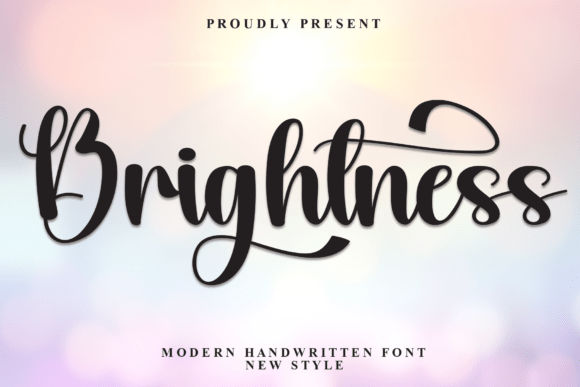
Introducing Brightness Font: The Epitome of Elegance and Sophistication
In the world of typography, few fonts manage to capture the essence of elegance and charm as effectively as Brightness Font. This stunning handwritten script font is designed to bring a touch of sophistication and refinement to any design project. With its fluid, graceful strokes, Brightness Font is perfect for a wide range of applications, from branding and invitations to stationery and more.
The Characteristics of Brightness Font
Brightness Font boasts a unique set of characteristics that set it apart from other fonts in its category. Its smooth curves and natural flow create a timeless, refined look that is sure to captivate audiences. The font’s fluid strokes are carefully crafted to convey a sense of elegance and poise, making it an excellent choice for designers looking to add a personal touch to their work.
What Makes Brightness Font So Versatile?
One of the key features that make Brightness Font so versatile is its adaptability. Whether you’re working on a branding project, designing an invitation, or creating stationery, this font can be easily integrated into your design. Its elegant and sophisticated appearance makes it suitable for a wide range of industries, from luxury and fashion to beauty and lifestyle.
Perfect for Branding
When it comes to branding, the font you choose can have a significant impact on how your brand is perceived. Brightness Font is an excellent choice for brands looking to convey a sense of sophistication and elegance. Its unique and stylish appearance can help your brand stand out from the competition, while its refined look and feel can help to establish trust and credibility with your target audience.
Elevate Your Invitations with Brightness Font
Invitations are a great way to make a lasting impression on your guests, and the font you choose can play a significant role in setting the tone for your event. Brightness Font is perfect for invitations, as it adds a touch of elegance and sophistication to your design. Whether you’re planning a wedding, birthday party, or corporate event, this font is sure to impress.
Adding a Personal Touch to Stationery
Stationery is an essential part of any business or personal brand, and the font you choose can have a significant impact on how your brand is perceived. Brightness Font is an excellent choice for stationery, as it adds a personal and sophisticated touch to your design. Whether you’re creating business cards, letterheads, or envelopes, this font is sure to make a lasting impression.
The Benefits of Using Brightness Font
So, what are the benefits of using Brightness Font? Here are just a few:
- Elegance and sophistication: Brightness Font adds a touch of elegance and sophistication to any design.
- Versatility: This font is perfect for a wide range of applications, from branding and invitations to stationery and more.
- Timeless look: The smooth curves and natural flow of Brightness Font create a timeless, refined look that is sure to captivate audiences.
- Personal touch: This font adds a personal touch to any design, making it perfect for brands looking to establish a connection with their target audience.
How to Use Brightness Font Effectively
To get the most out of Brightness Font, here are a few tips to keep in mind:
- Use it sparingly: While Brightness Font is elegant and sophisticated, it can be overwhelming if used excessively. Use it sparingly to create a lasting impression.
- Pair it with complementary fonts: Pair Brightness Font with complementary fonts to create a unique and stylish look.
- Experiment with different sizes and colors: Experiment with different sizes and colors to find the perfect combination for your design.
In conclusion, Brightness Font is a stylish handwritten script font that exudes elegance and charm. With its fluid, graceful strokes, this font is perfect for a wide range of applications, from branding and invitations to stationery and more. Its smooth curves and natural flow create a timeless, refined look that is sure to captivate audiences. Whether you’re a designer looking to add a personal touch to your work or a brand looking to establish a sophisticated image, Brightness Font is an excellent choice.
Key Takeaways
- Brightness Font is a stylish handwritten script font that exudes elegance and charm.
- This font is perfect for branding, invitations, stationery, and more.
- Brightness Font features smooth curves and a natural flow, creating a timeless, refined look.
- This font adds a personal and sophisticated touch to any design.